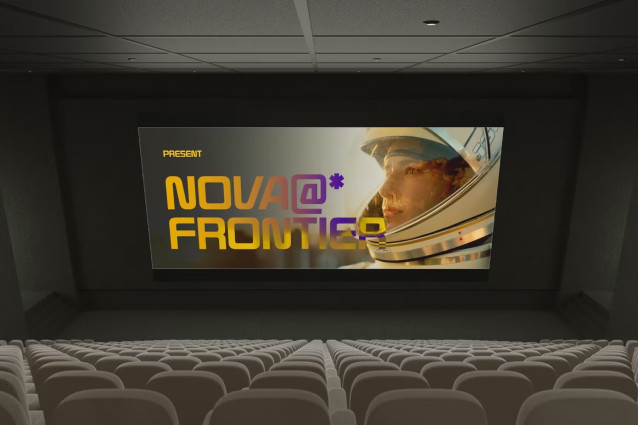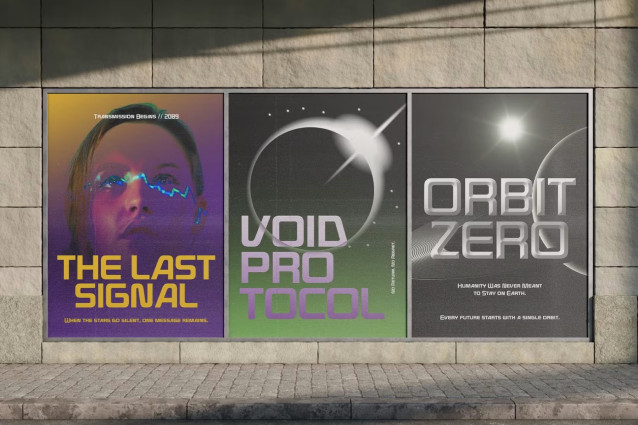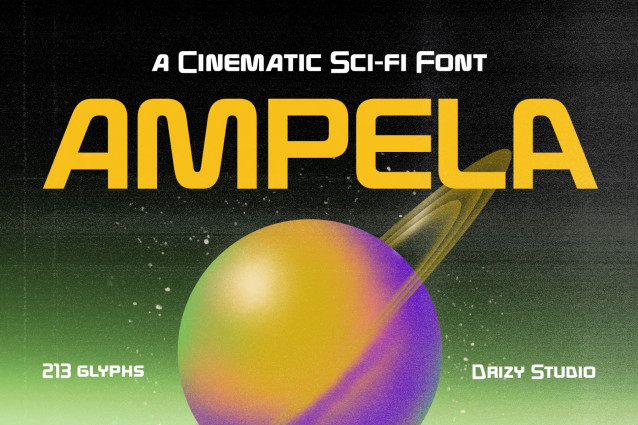
Ampela – Cinematic Sci-Fi Font
Ampela is a Cinematic Sci-Fi Font designed to bring a bold, futuristic, and immersive feel to your projects. Featuring a strong Display style with clean Sans Serif forms and sharp Geometric details, Ampela delivers a sleek and powerful visual impact.
Perfect for Sci-fi, action, technology, gaming, and Blockbuster-inspired designs. Its Modern and futuristic character makes it ideal for movie titles, posters, logos, branding, game interfaces, headlines, and more.